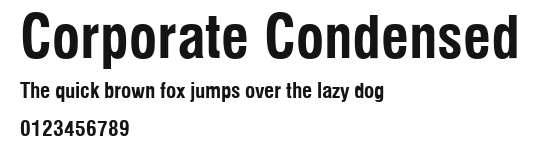
• Font Name: Corporate Condensed
• Full Font Name: Corporate Condensed Bold
About Corporate Condensed.ttf
Corporate Condensed.ttf is a modern, elegant sans-serif font designed for ultimate readability and visual harmony. Perfect for branding, headlines, web design, and print materials.